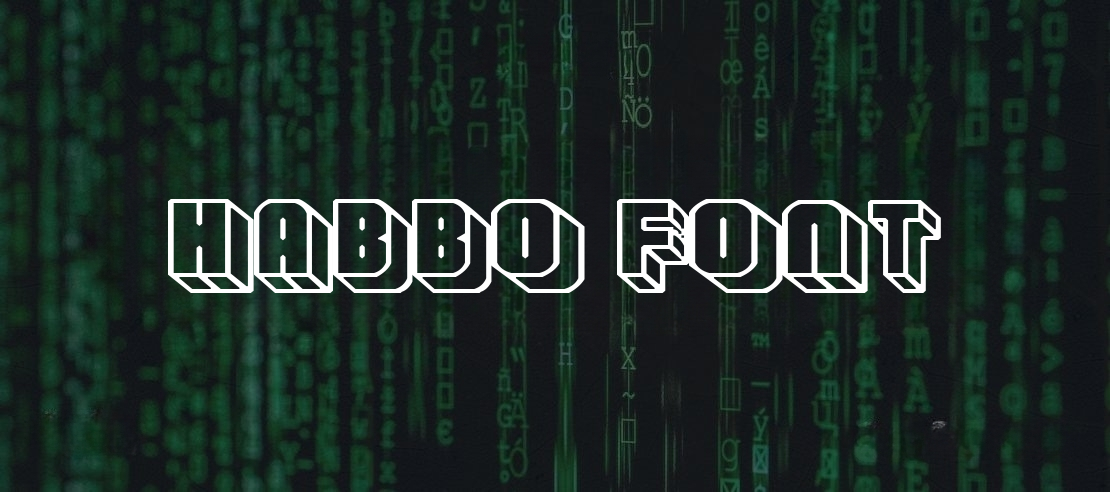
Habbo Font is a unique display typeface that was created by Juanplav. The glyph of this font has a very special shape and features. The font comes in only uppercase letters, while the rest of the letters have a vertical crossbar. This makes the font very unique and easy to read. The Font was inspired by the classic American Gothic typeface. It is a very popular font and has been used by many brands.
This font is perfect for headlines and logos that need to make a statement. The thick strokes give the letters an authoritative feeling, while the brackets add a touch of fun. This Font would also work well for invitations and other formal documents. The letters have a regal feeling that would make any event seem more important.
Creator of Habbo Font
The designer of this font is Juanplav. he is very professional and very well known in the fonts market that designs many fonts but this is very remarkable in logo designs.
View of Habbo Font
| Name | Habbo Font |
| Style | Display |
| Designer | Juanplav |
Is Habbo a good font for a website?
This is a good font for website design because it is easy to read and has a clean, bold appearance.
Is Habbo a modern font?
Yes, this font is considered to be modern. The strong horizontal strokes and 3d letters give it a contemporary feel.